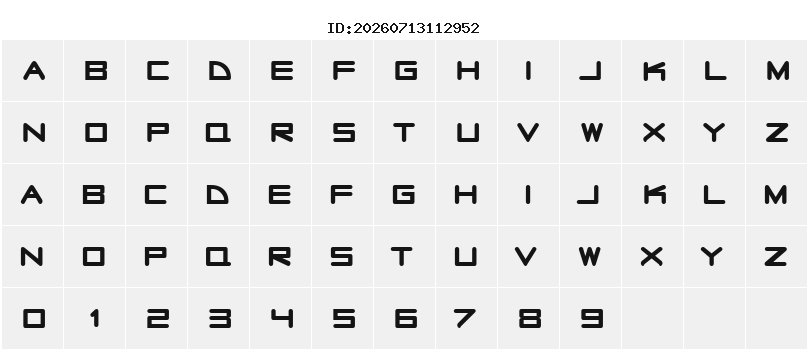
Radio Stars Preview
• Font Name: Radio Stars
• Full Font Name: Radio Stars
About Radio Stars.ttf
Radio Stars.ttf is a modern, elegant sans-serif font designed for ultimate readability and visual harmony. Perfect for branding, headlines, web design, and print materials.